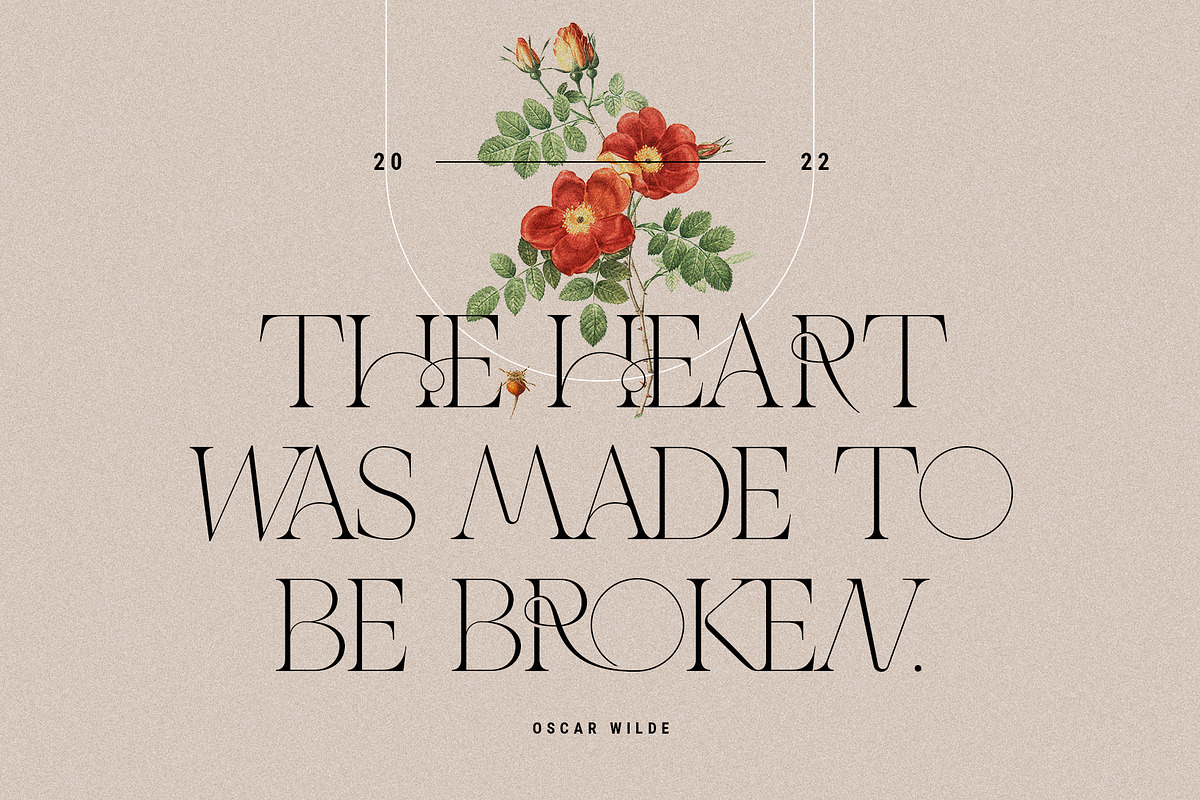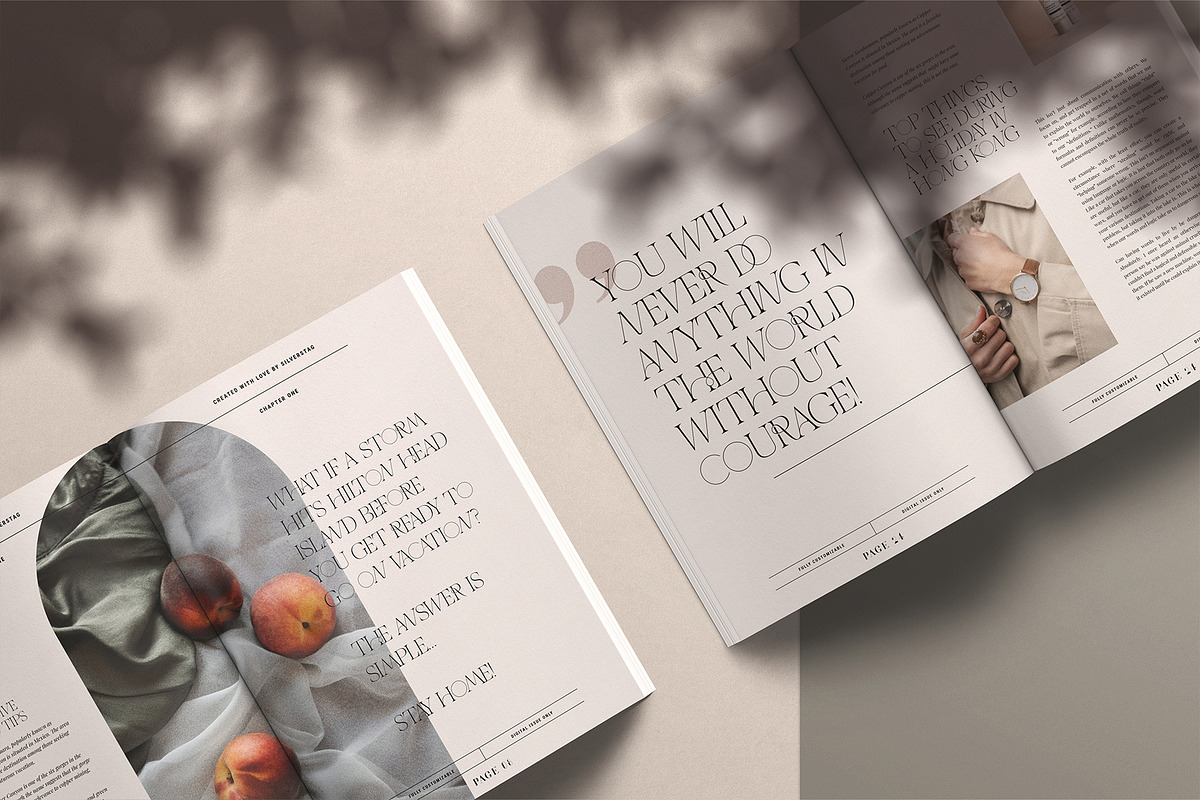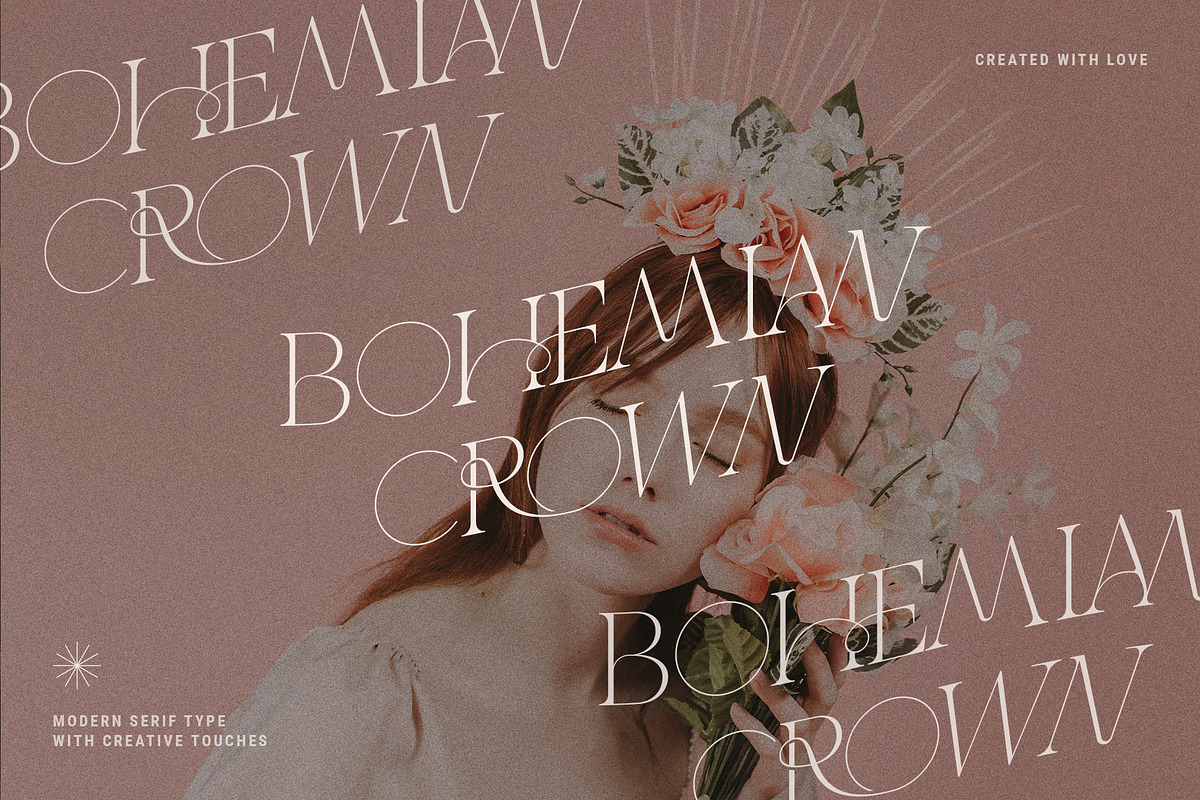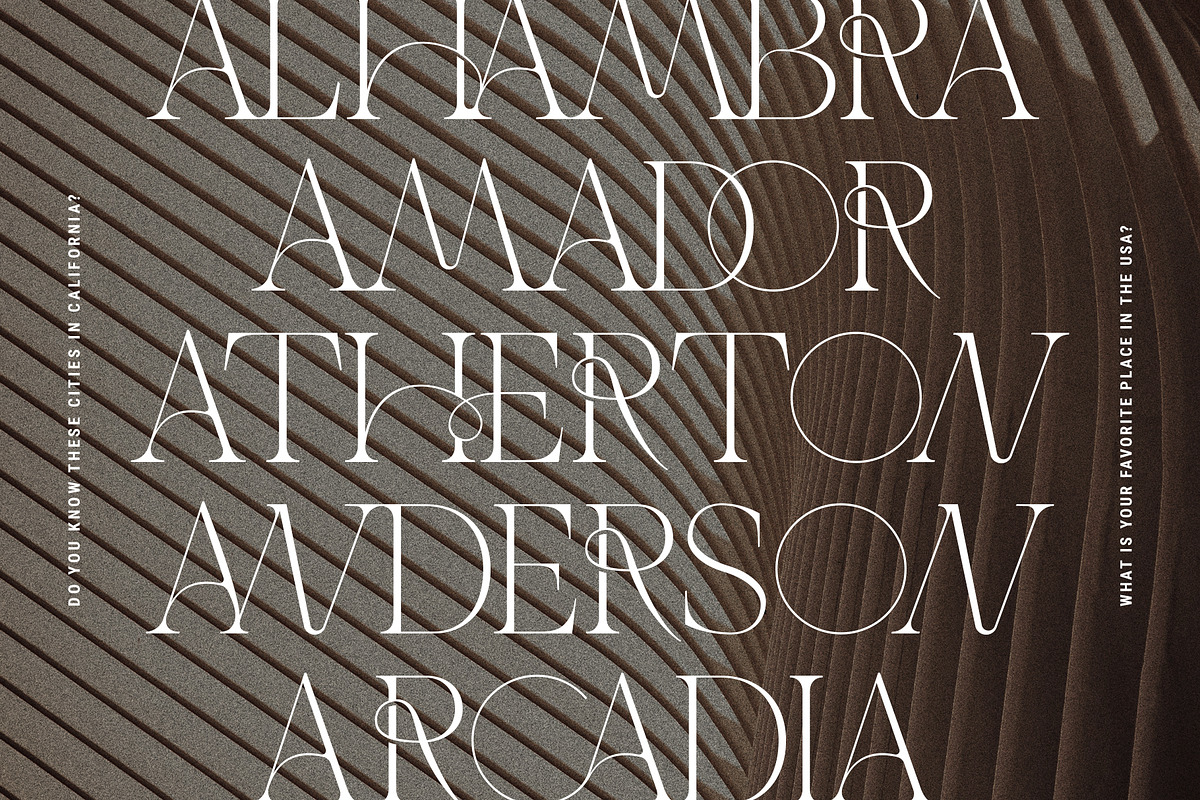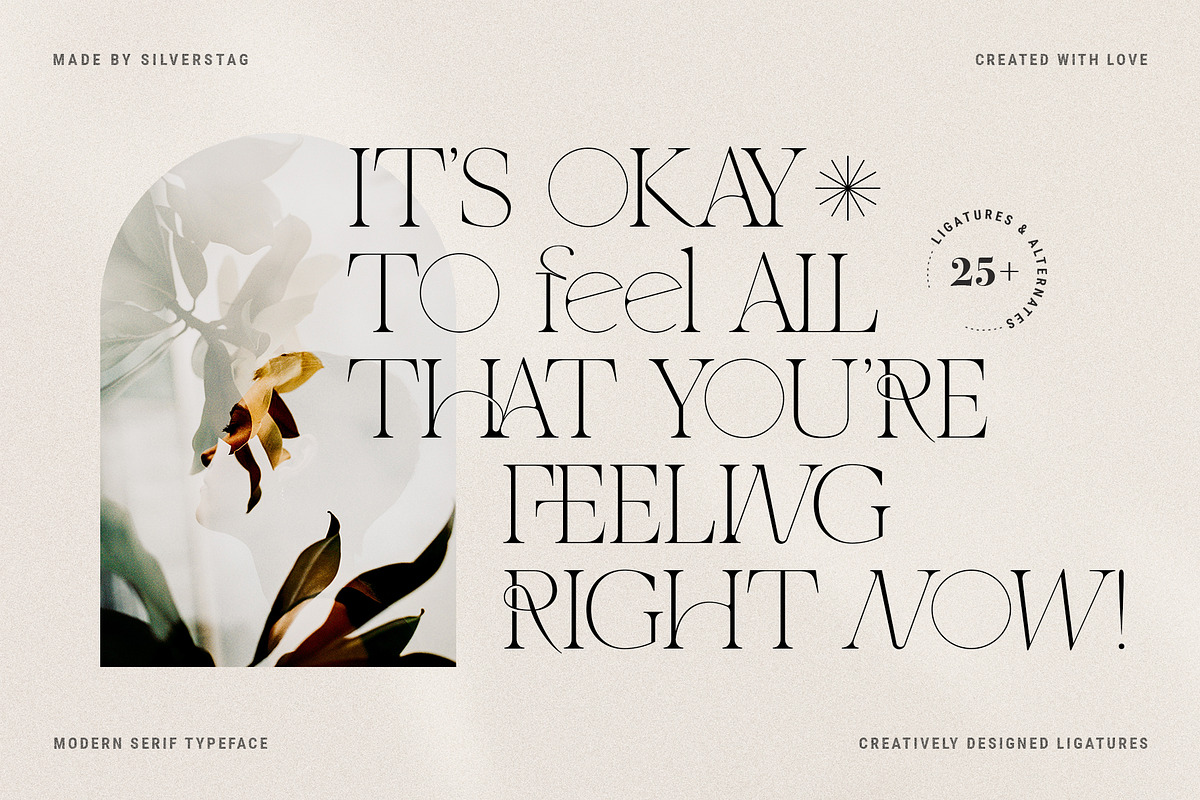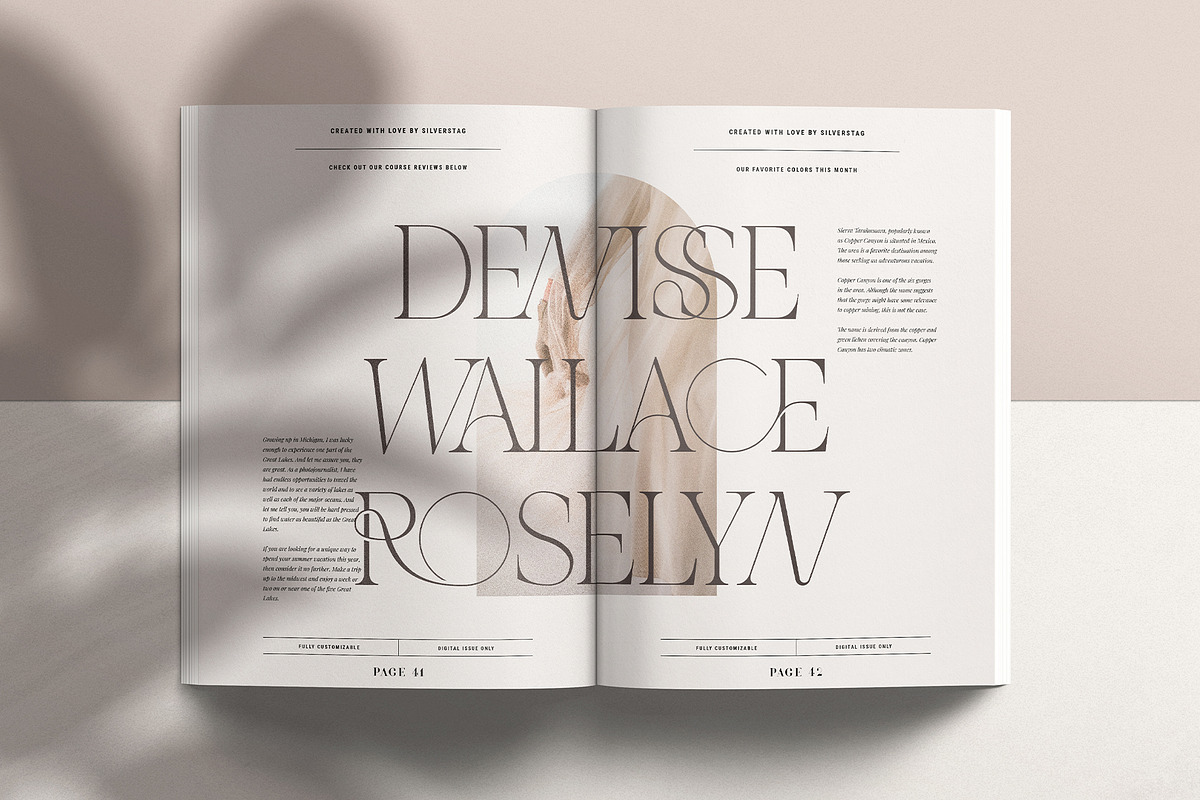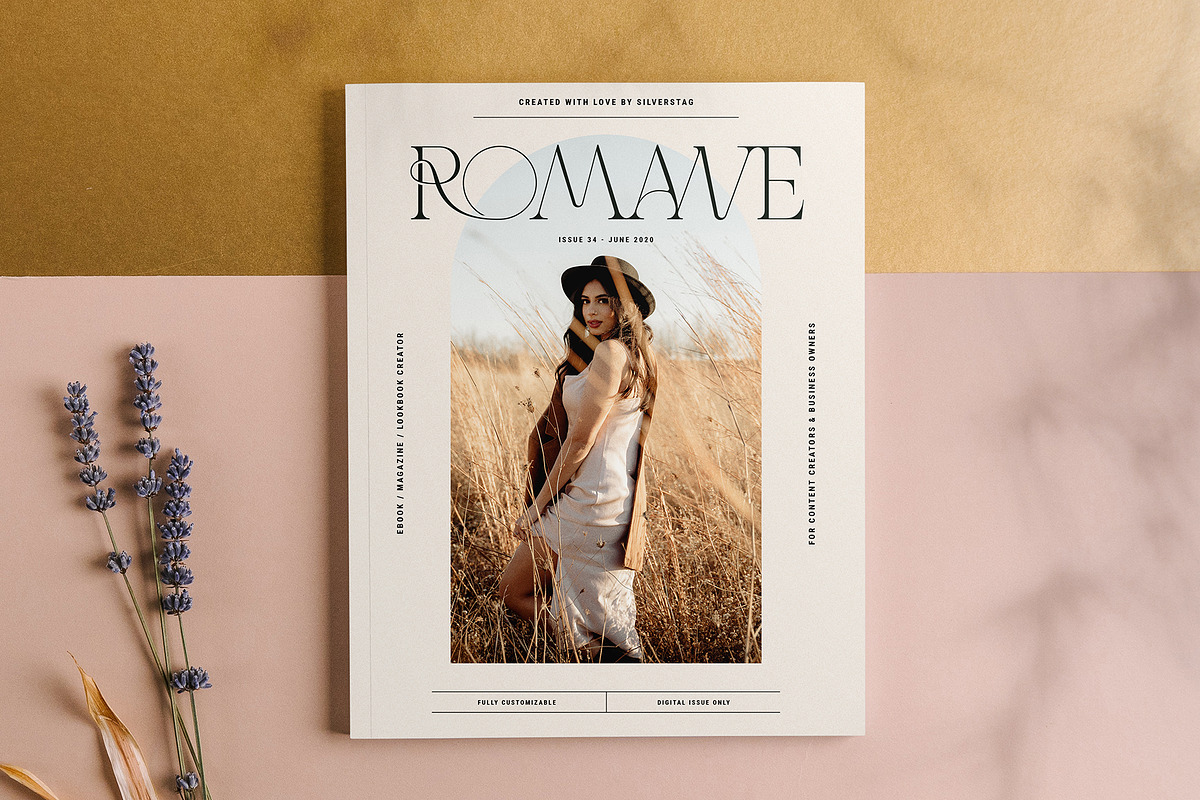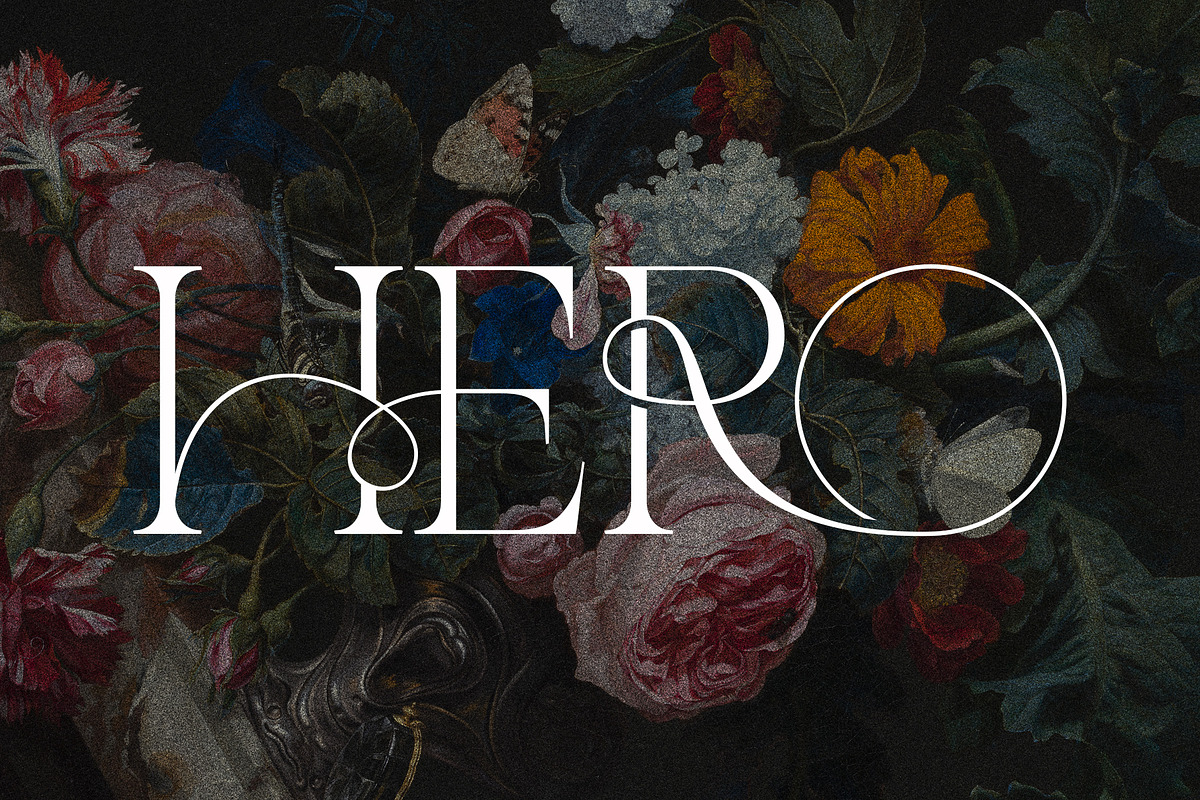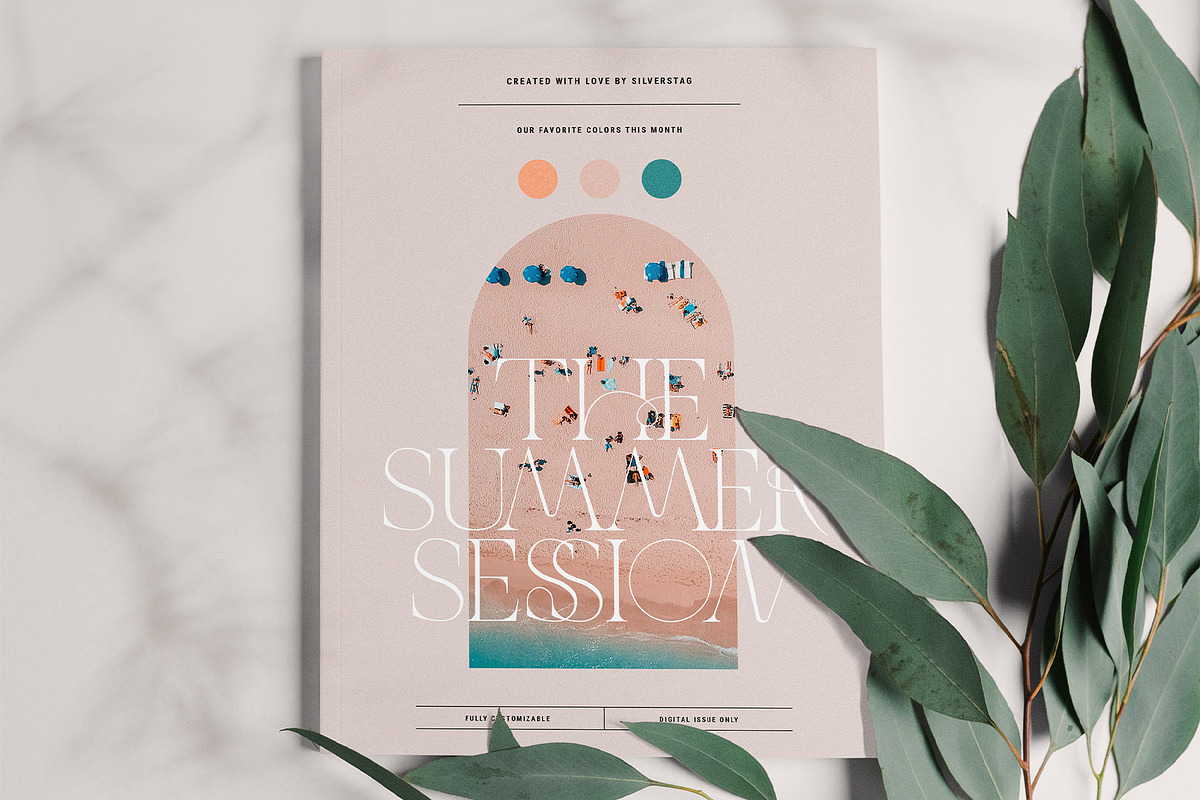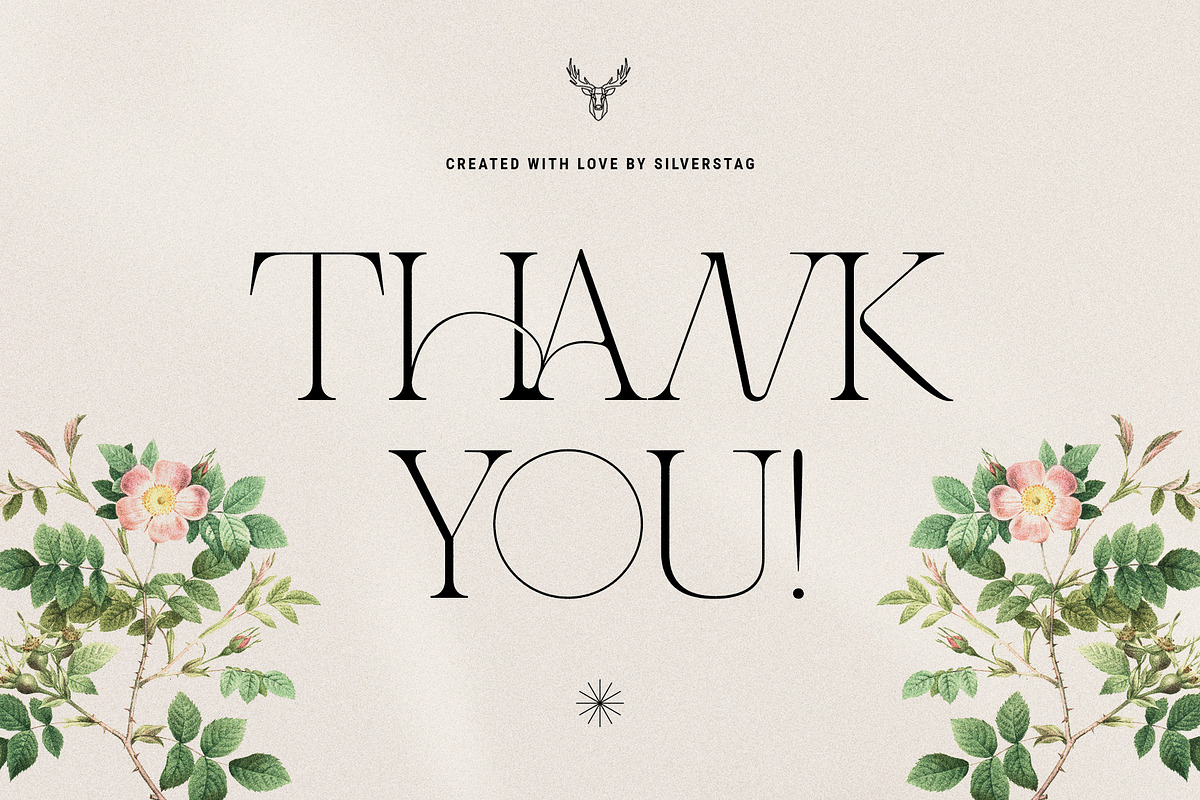
THE FRENCH KISS ROYAL TYPEFACE
Just in time for Valentine's day I am giving you my new ligature serif typeface - THE FRENCH KISS. Inspired by the art, flow, love and of course France, this new ligature font offers you classical serif features with modern connections and creative solutions for ligatures!
Each of the letters and ligatures was handcrafted and made to fit other letters without exception. All letters are 100% unique with edgy and modern design that will give you a look that is different than any other.
The French Kiss Royal Typeface is a perfect choice if you are working on a new poster, valentine's day card, website or branding. It is created to be used in bold ways that will display your uniqueness! Check out the photos I have prepared for you to see what you can do with it and happy creating!
- Lowercase and Uppercase letters
The following letters are included: A À Á Â Ã Ä Å C Ç D Ð E È É Ê Ë I Ì Í Î Ï N Ñ O Ø Ò Ó Ô Õ Ö U Ù Ü Ú Û W Ẃ Ŵ ẄẀ Y Ý Ÿ Ỳ Ÿ Æ Œ ß Þ þ in uppercase and lowercase so the font supports a huge number of languages.